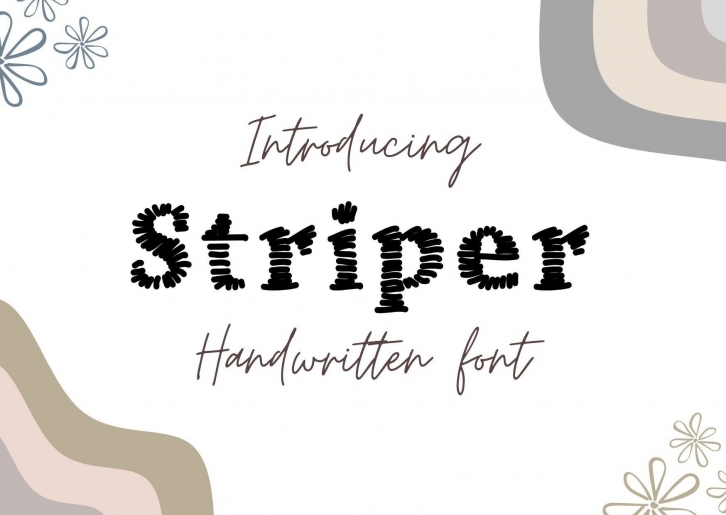
Striper is a handwritten font with shapes from a stripe line. Unique style, It is suitable for informal or formal text, and quotes on products, like mugs or shirts.